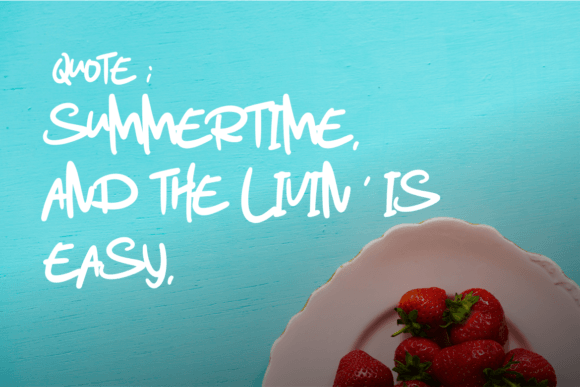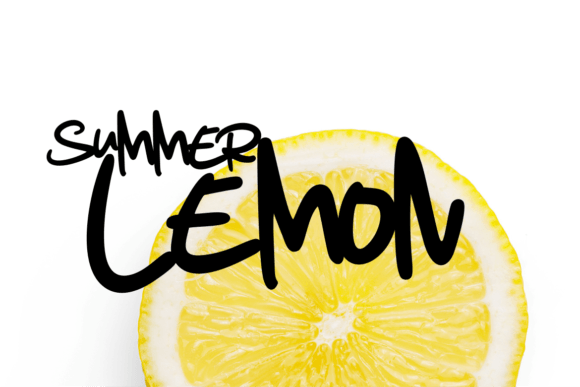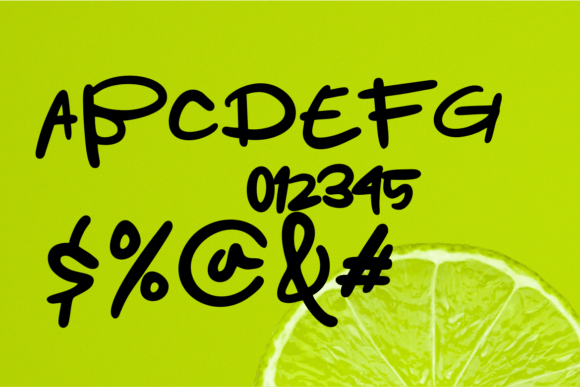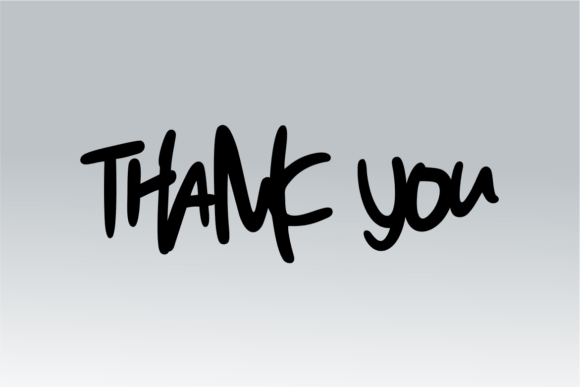
Introducing Gento Summer Font: The Ultimate Typographic Companion for Your Summer Projects
Are you tired of using the same old fonts for your summer-themed projects? Look no further! We’re thrilled to introduce the Gento Summer Font, a breathtaking handwritten font that embodies the warmth, energy, and joy of the sun-kissed season. Crafted with meticulous attention to detail, style, and creativity, this summer font is the perfect fit for various summer events, from coastal holidays to outdoor festivals.
The Essence of Summer in a Font
Gento Summer Font is more than just a typographic creation – it’s an experience. Imagine the sound of seagulls flying overhead, the smell of saltwater and coconut sunscreen, and the feel of warm sand between your toes. This font captures the essence of summer, transporting you and your audience to a world of carefree joy and relaxation.
With Gento Summer, you can add a splash of sun-drenched vibrancy to your projects, whether you’re designing a t-shirt for a beach festival, creating a poster for a summer concert, or crafting a social media campaign for a coastal getaway. This font is versatile, playful, and perfect for any project that requires a dash of summer magic.
What Makes Gento Summer Font Special?
• Handwritten with love: Gento Summer Font is a genuine handwritten font, crafted with love and care to ensure that every letter, every curve, and every flourish is unique and authentic.
• Attention to detail: Our team of expert typographers has meticulously refined every aspect of the font, from kerning and spacing to ligatures and alternates, to ensure a seamless and elegant reading experience.
• Summer vibes: Gento Summer Font is infused with the carefree spirit of summer, making it perfect for any project that requires a touch of warmth, energy, and joy.
• Multipurpose: Whether you’re a designer, crafter, or DIY enthusiast, Gento Summer Font is the perfect companion for your summer projects, from screen printing to digital design.
How to Use Gento Summer Font
Using Gento Summer Font is easy! Here are a few ideas to get you started:
• Screen printing: Create stunning t-shirts, tote bags, or posters with Gento Summer Font, perfect for summer festivals, beach events, or outdoor activities.
• Digital design: Add a touch of summer charm to your social media graphics, blog posts, or website headers with Gento Summer Font.
• Crafting: Use Gento Summer Font to create beautiful handmade cards, gift tags, or scrapbooking projects that capture the essence of summer.